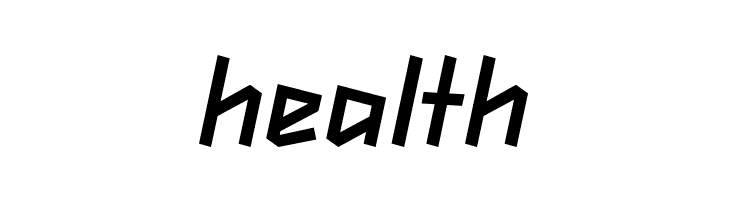
Old London Font
Font by Dieter Steffmann
A classic blackletter font with ornate, medieval-inspired letterforms.
Londrina Solid Black Font
A bold, solid font with a strong, modern presence.
Old London Alternate Font
Font by Dieter Steffmann
A bold, ornate font with a medieval, historical style.
LMS Hello Kitty Hello Font
A playful, decorative font with cartoon faces integrated into each character.
LMS Hippy Chick Font
A bold, decorative font with floral patterns, inspired by 60s and 70s hippie culture.
London Fill Font
Font by antoniorodriguesjr.com
A high-contrast, elegant font with a modern and sophisticated style.
Londrina Solid Light Font
A clean, modern font with a geometric and solid design.
London Font Font
A modern, dotted font with a playful and geometric design.
London Font
Font by antoniorodriguesjr.com
A modern, geometric font with elegant lines and a sleek design.
Londrina Solid Regular Font
A bold, solid font with uniform strokes and rounded edges, ideal for impactful headlines.
LondonTwo Font
Font by François Bruel
A bold, geometric typeface with clean lines and a modern aesthetic.
Londrina Solid Font
A bold, solid font with a modern and impactful style.
London Fraktura Font
A classic blackletter font with ornate, angular letterforms and decorative flourishes.
london 2012 Font
Font by
spideraysfonts
A bold, angular font with a modern, dynamic style.
Irish Beer Font
A playful font with characters inside frothy beer mugs, ideal for festive designs.
Green London Font
Font by The Typerex
A playful, handwritten script font with medium contrast and a lively style.
LondonBetween Font
Font by François Bruel